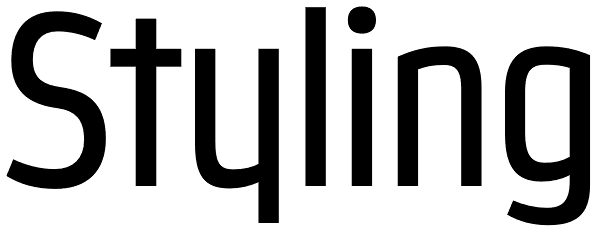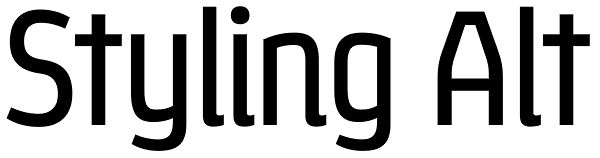
Styling
Styling is a simple, light, sans-serif typeface inspired on old cars and planes with an aerodynamic shape. The font comes in 5 weights plus italics. Styling and Styling Alt families offer professionals a wide range of creative options. Styling was...